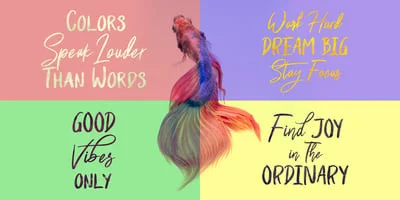
Shutten Reason Font
Shutten Reason Font is ideal for analytical design applications including corporate consulting branding, research institution materials, academic publications, legal documentation, financial services marketing, professional reports, scientific journals, and strategic business communications. This sophisticated typeface brings intellectual authority and logical clarity to projects that demand rational thinking and professional credibility.
What makes Shutten Reason Font exciting is its perfect embodiment of logical thinking and analytical precision through letterforms that communicate intelligence, clarity, and methodical reasoning. The font features structured construction with balanced proportions and refined details that ensure optimal readability while projecting intellectual authority. Its rational character appeals to audiences who value evidence-based thinking, systematic analysis, and professional expertise.
The Shutten Reason Font family includes various analytical styles such as Light, Regular, Medium, Bold, and accompanying italic variations that enhance the intellectual aesthetic. These sophisticated options provide comprehensive design solutions for creating authentic professional brand identities that celebrate logical reasoning and analytical excellence.
This distinguished analytical typeface brings genuine intellectual authenticity to contemporary design projects. Consulting firms and research organizations choose Shutten Reason Font for its exceptional ability to communicate logical thinking and professional authority. The font's reasoning inspiration makes it perfect for advisory services, academic institutions, and analytical companies that want to convey intellectual rigor and systematic methodology. Its structured character ensures memorable brand recognition while maintaining the authentic aesthetic that defines exceptional intellectually-focused design work.